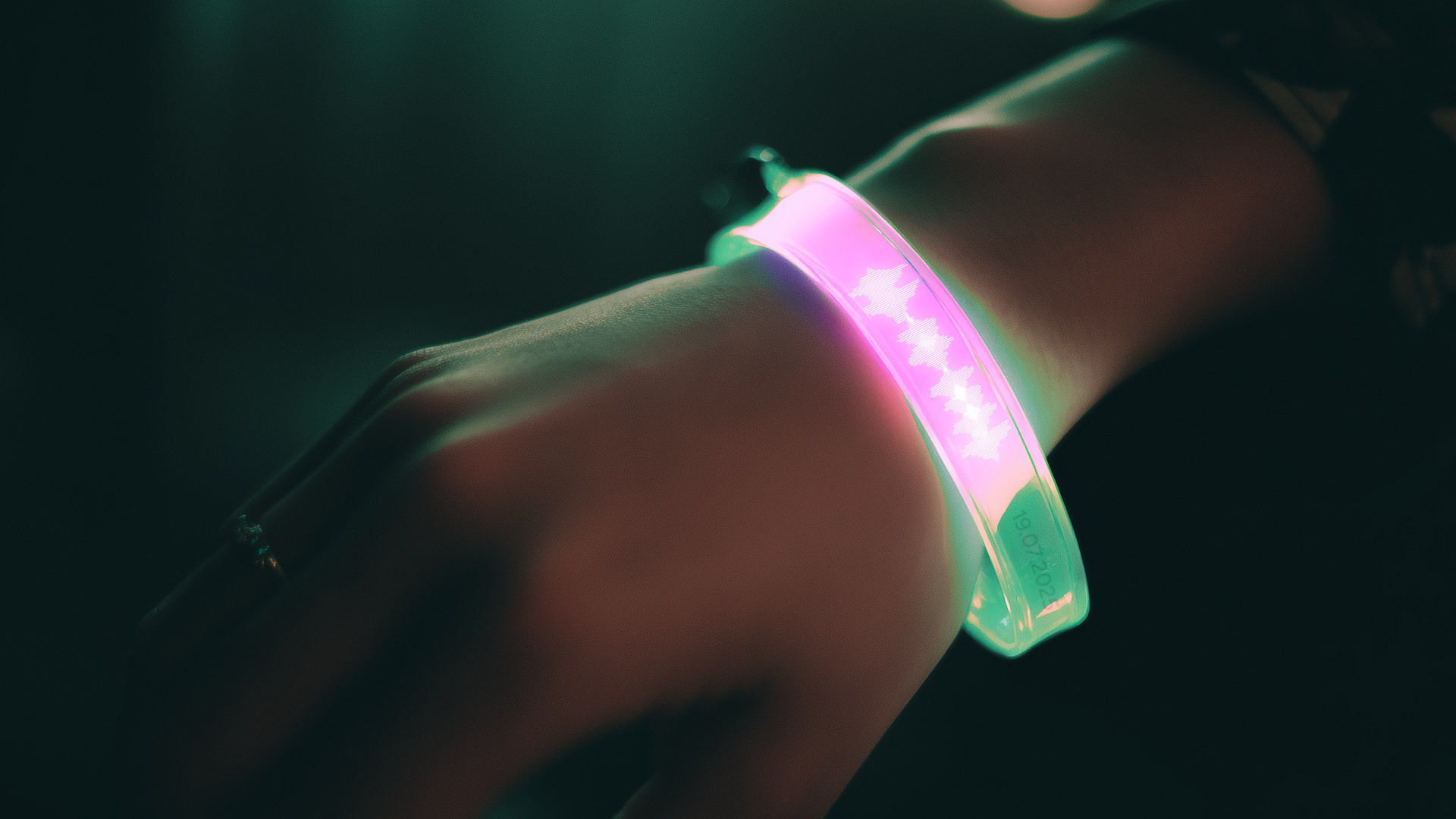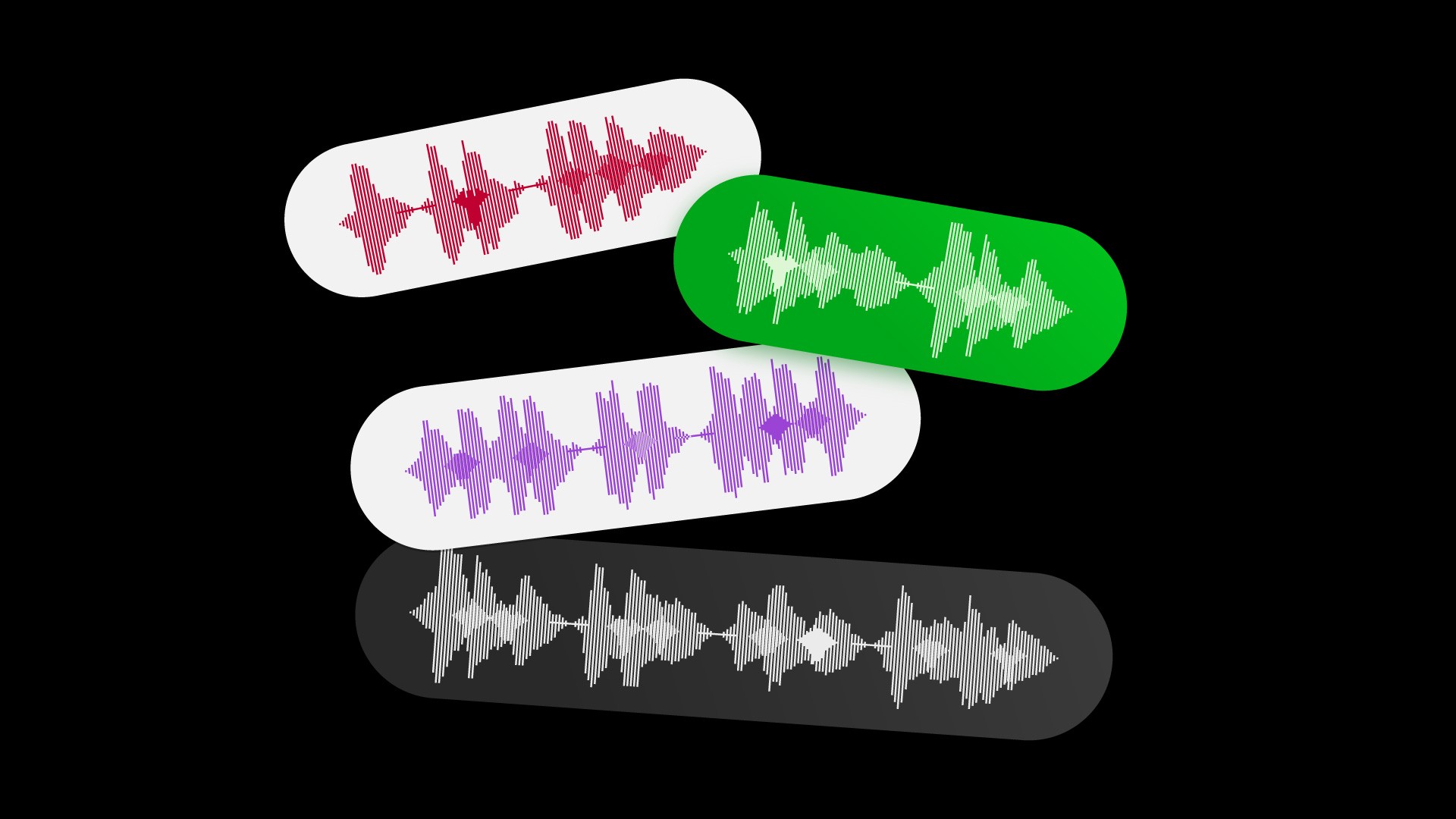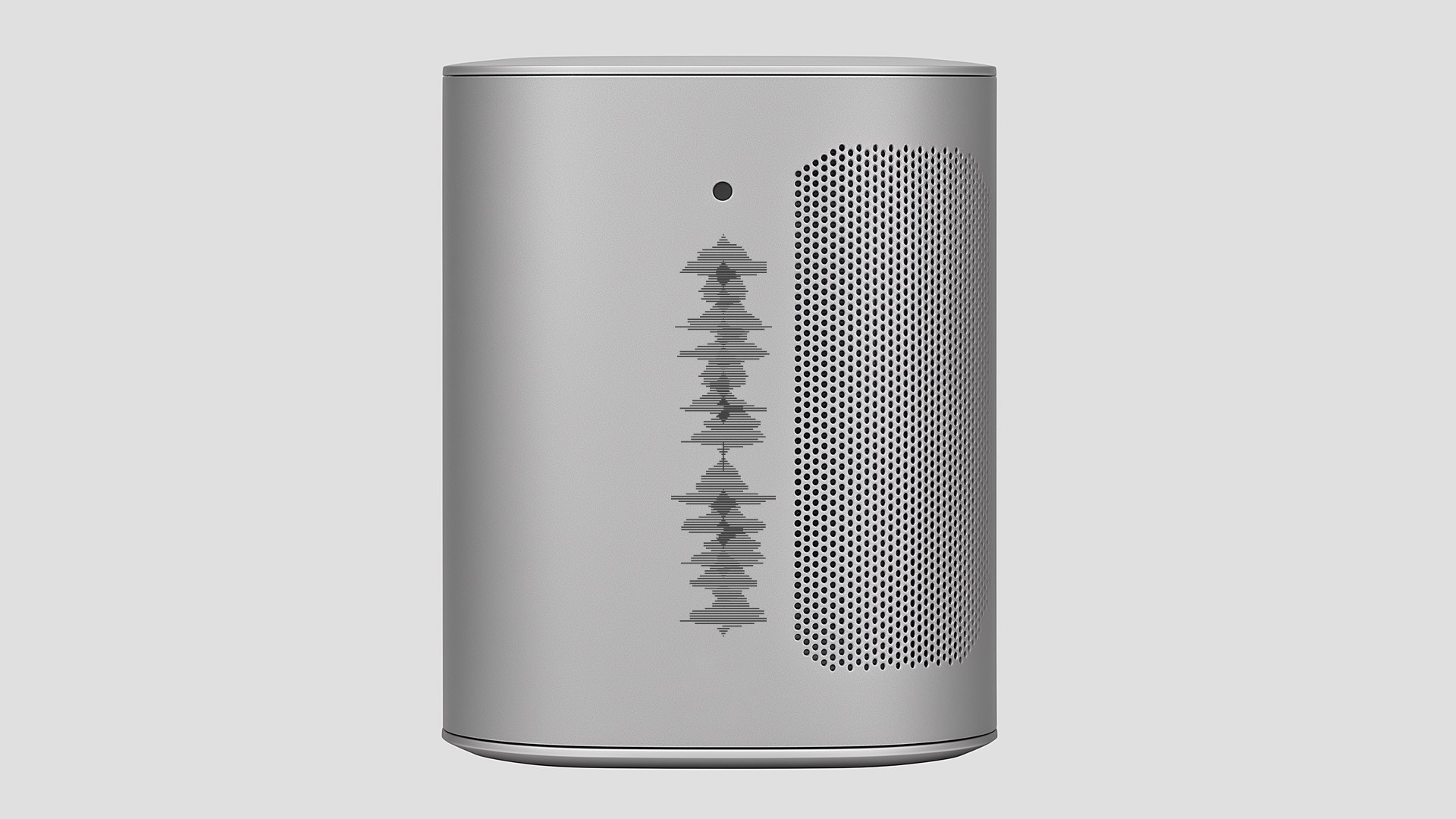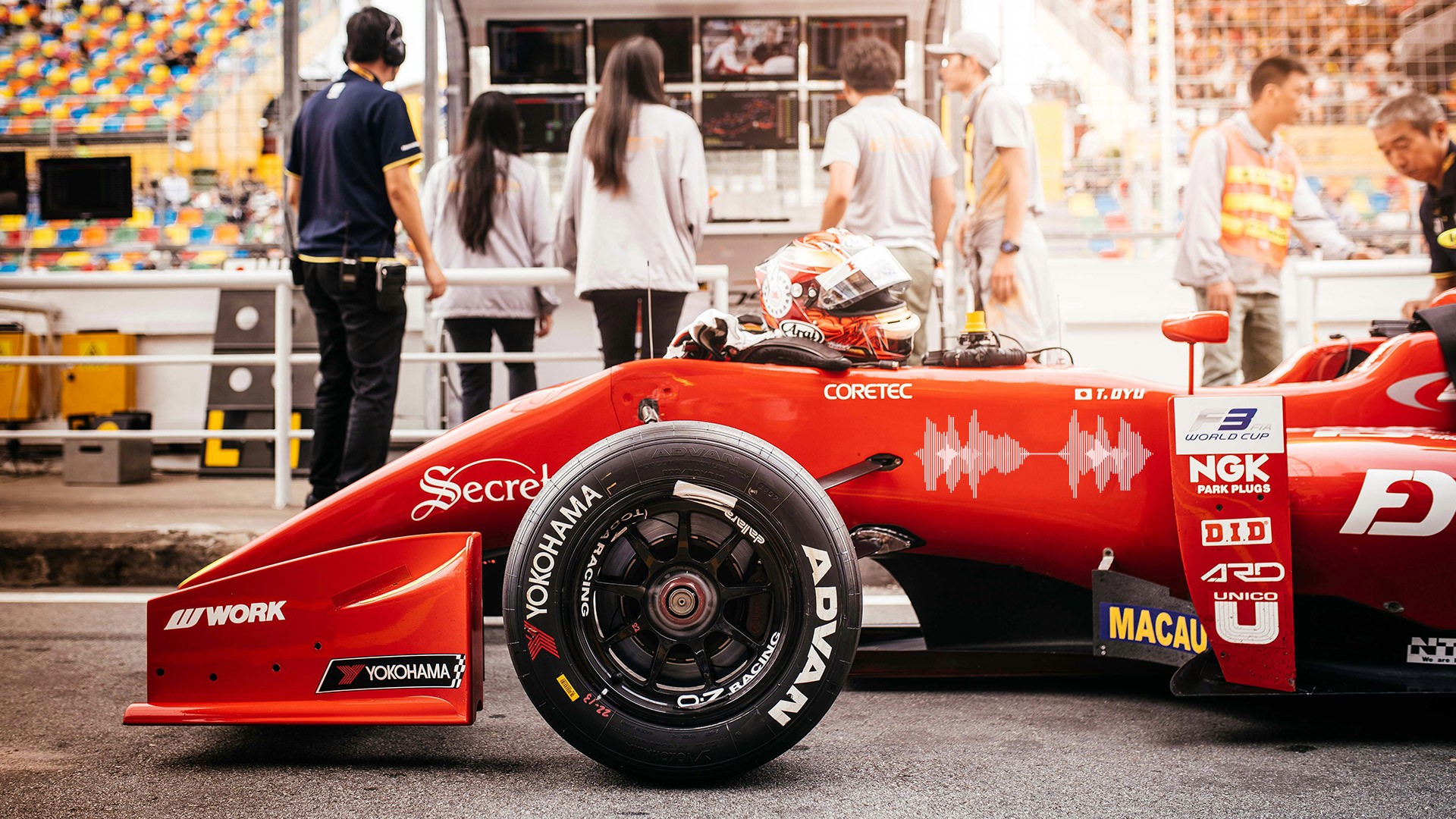
Voice font
The voice font is based on the author’s alphabetic audio recording and consists of unique glyphs. The original sound waves were sampled and simplified to create the typeface. Negative tracking creates additional overlaps of the stems, resulting in a unique pattern and forms.
Voice font
The voice font is based on the author’s alphabetic audio recording and consists of unique glyphs. The original sound waves were sampled and simplified to create the typeface. Negative tracking creates additional overlaps of the stems, resulting in a unique pattern and forms.
The font is intended for decorative purposes and can only be read by the most inquisitive minds. It easily encodes messages, Easter eggs, pleasant notes, and references. Voice symbols are perfect for marking clothing and encoding events on wristbands. The glyphs also look excellent on passes, cards, and documents.
It is ideal for decorating music events, festivals, clubs, as well as instruments and the stage.